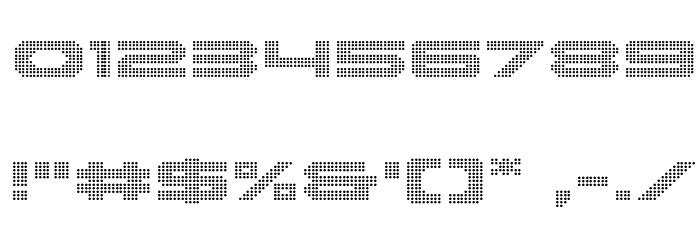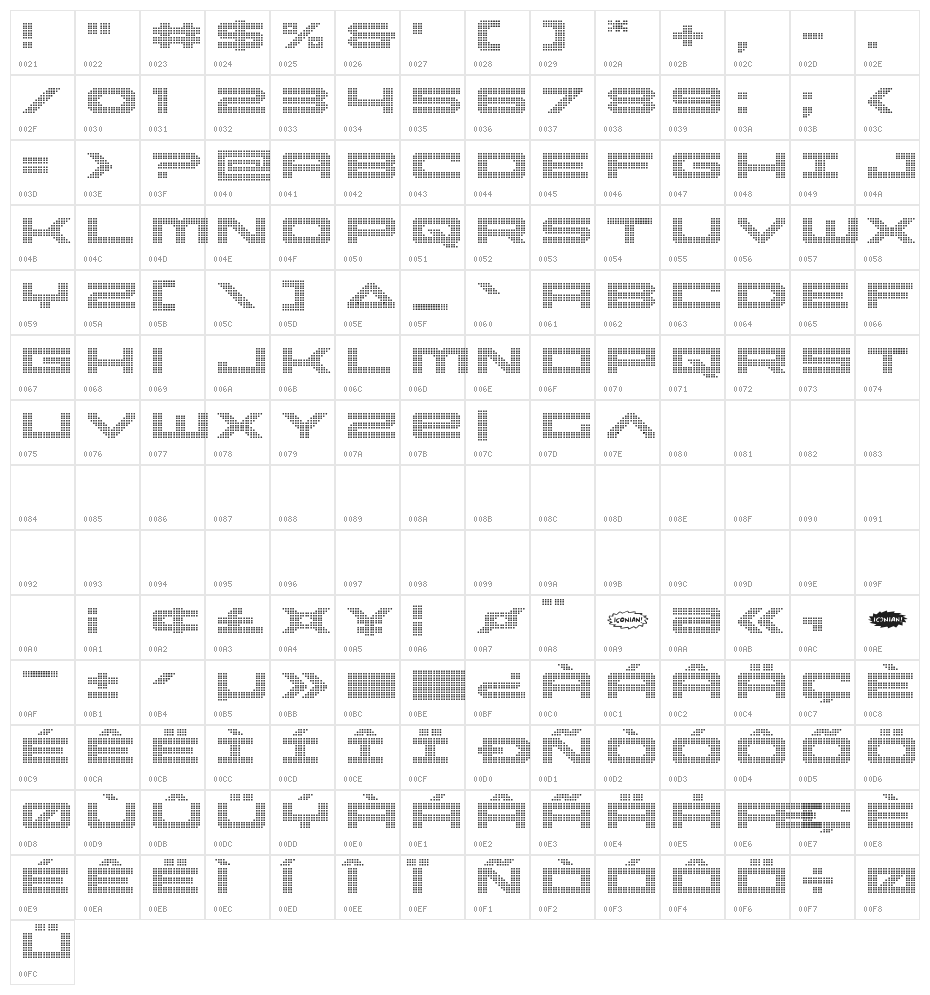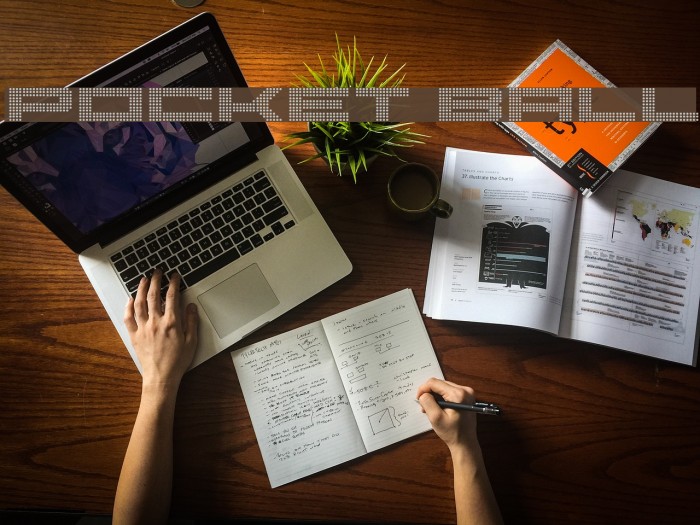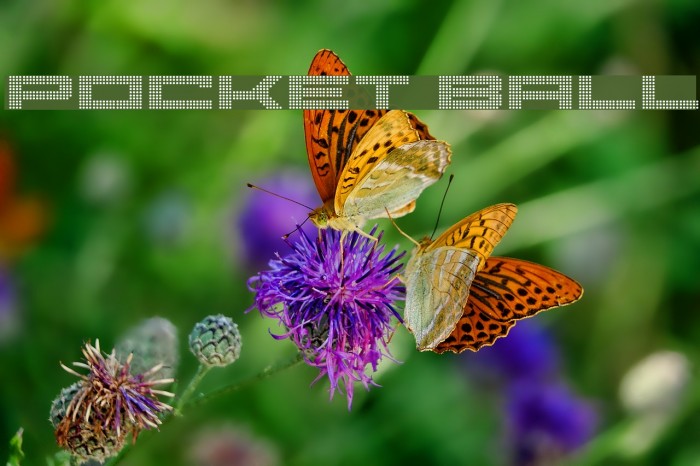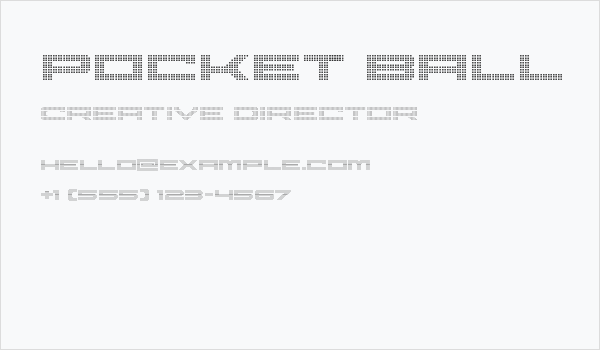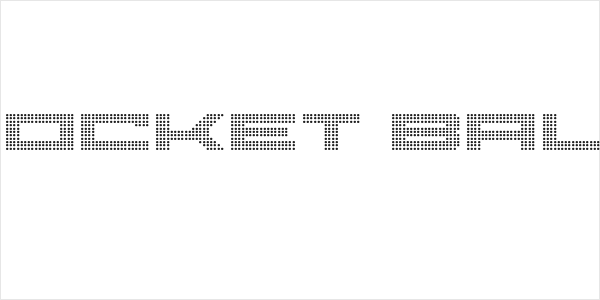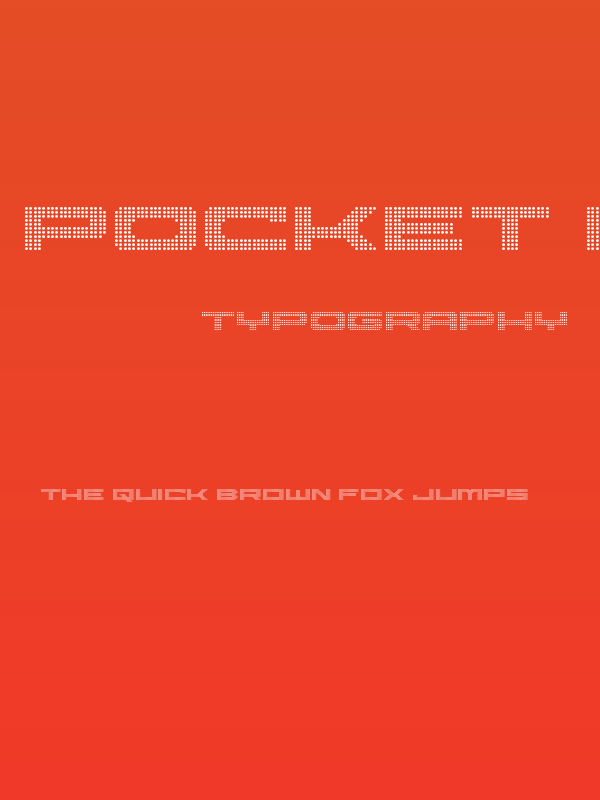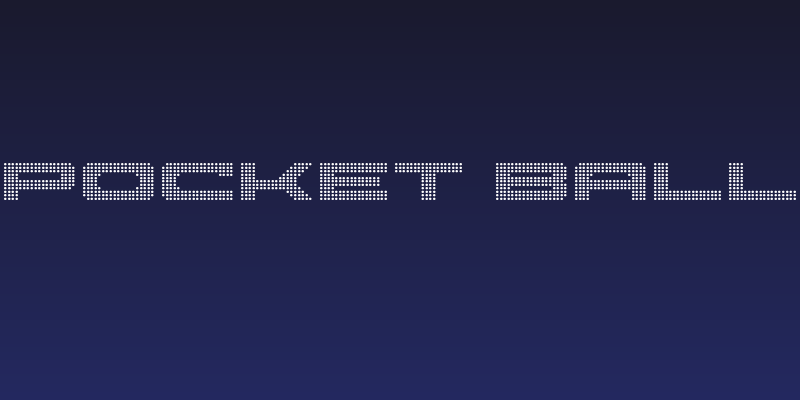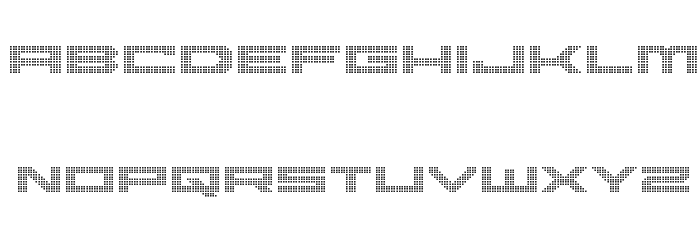
Pocket Ball Font
Pocket Ball Description
This font features a unique dot matrix design, creating a digital and modern aesthetic. Each character is composed of evenly spaced dots, forming a grid-like pattern that gives a sense of precision and technology. The uppercase and lowercase letters maintain a consistent style, with rounded edges that soften the overall look. The numerals and special characters follow the same dot-based structure, ensuring uniformity across all elements. This font is ideal for projects that require a futuristic or tech-savvy appearance, such as digital displays, tech branding, or innovative product packaging.
Proposed ProjectsIdeal for digital displays, tech branding, and innovative product packaging.